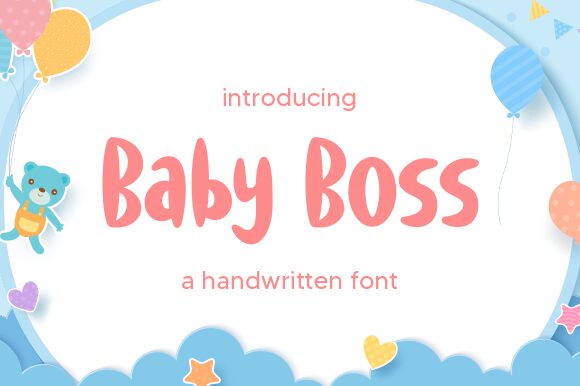
Baby Boss
Meet Baby Boss, the charismatic semi-bold font designed by Nirmala Creative to add a personal touch to your projects. With its condensed width and handwritten style, this font is perfect for branding and marketing materials, such as logos, social media graphics, and packaging design. Its playful yet professional vibe also makes it suitable for children's books, greeting cards, and invitations. Let Baby Boss bring a unique flair to your next project with its bold strokes and charming curves. Elevate your brand with the delightful personality of this one-of-a-kind typeface.